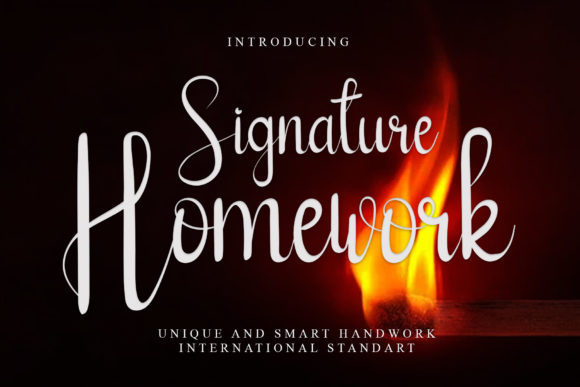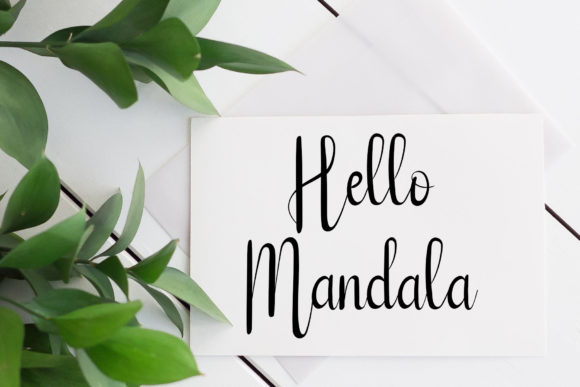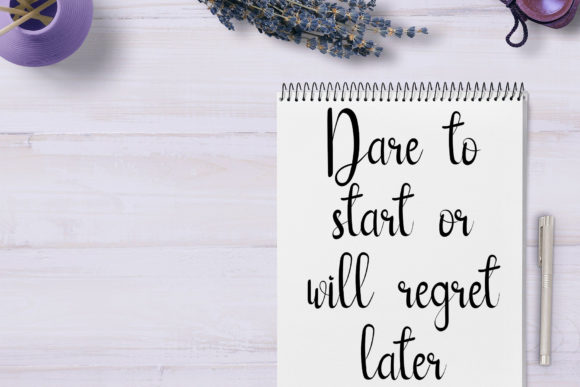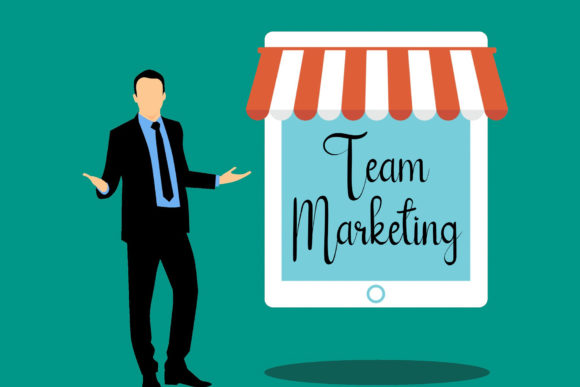
Signature Homework Font
About Signature Homework Font
Signature Homework is a chic and cursive script font that exudes elegance and class. This font was particularly crafted for those who need a beautiful and refreshing look to their designs.